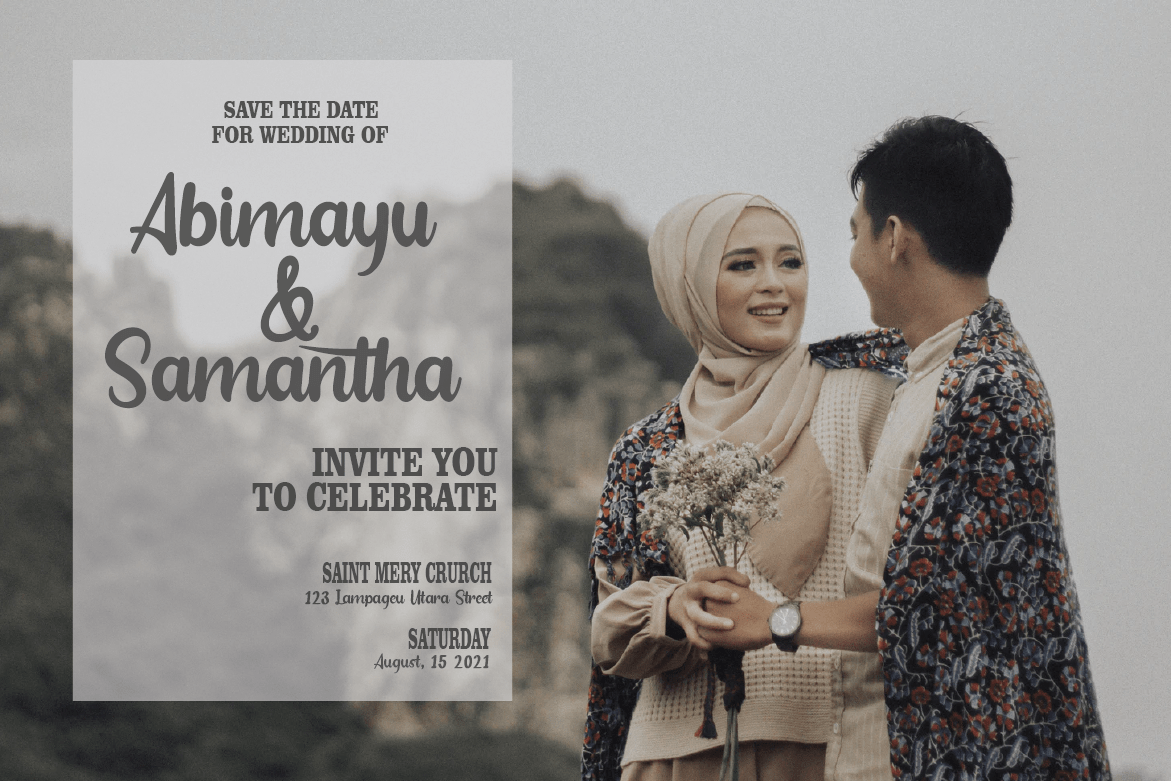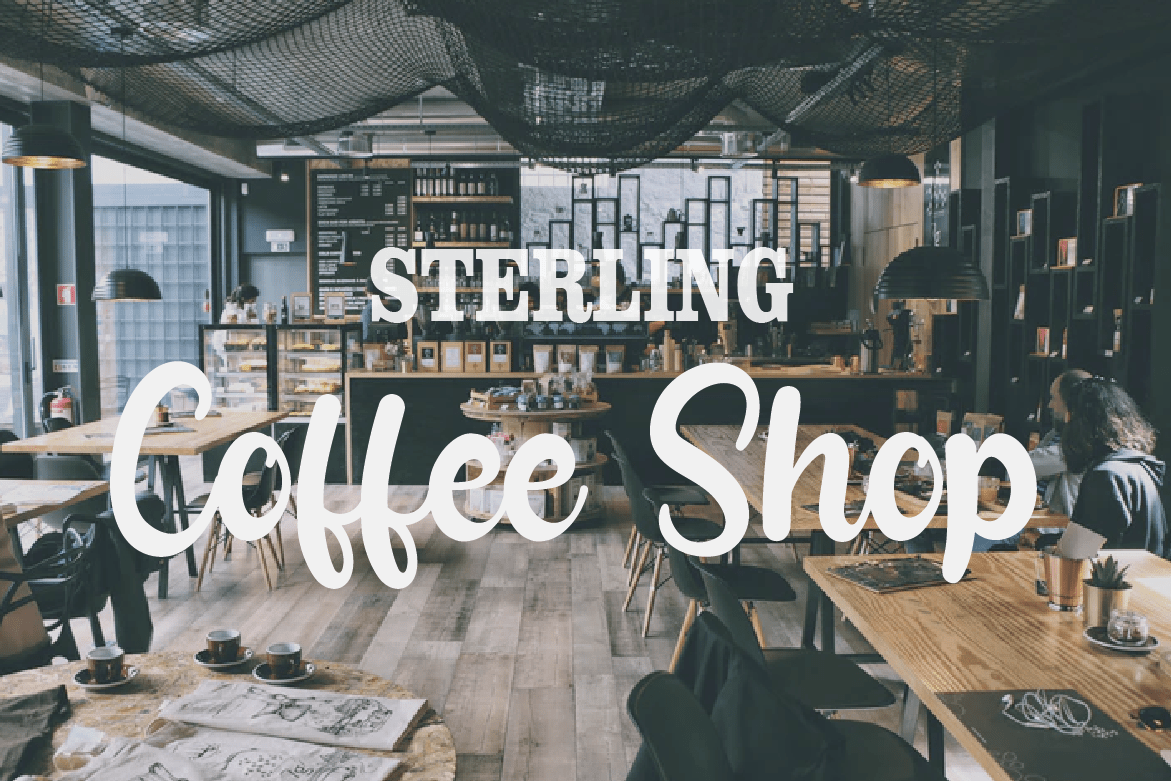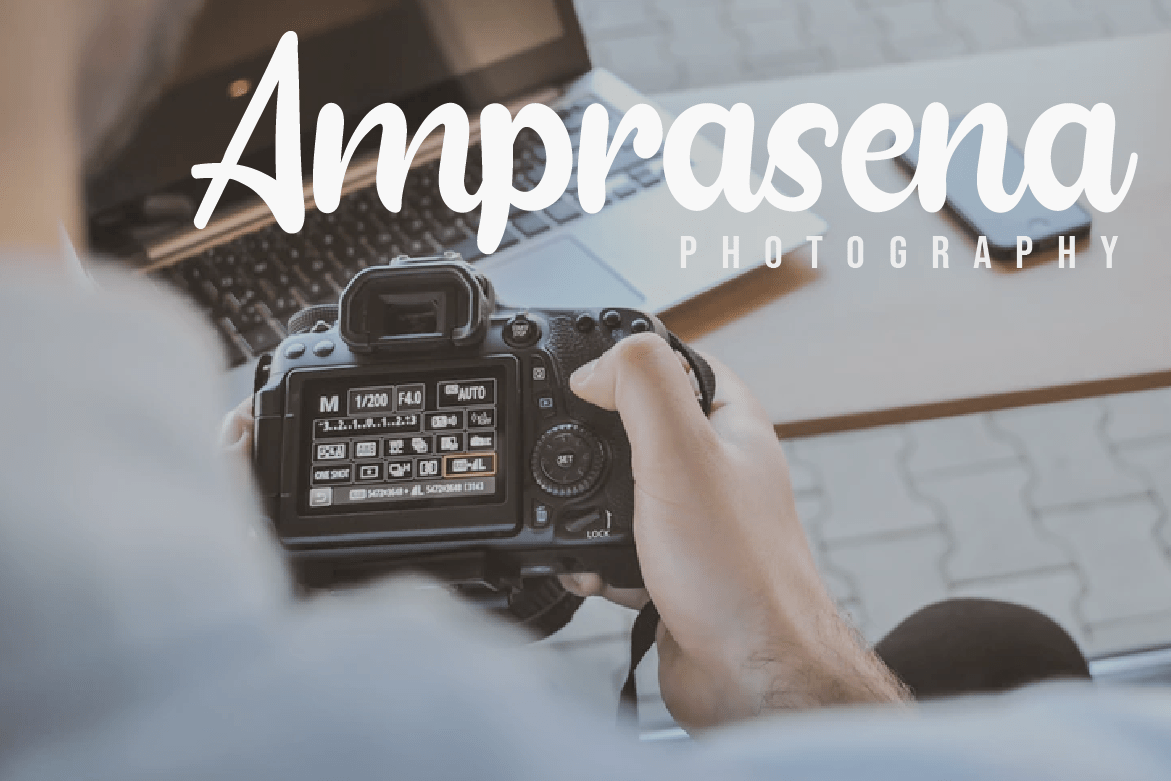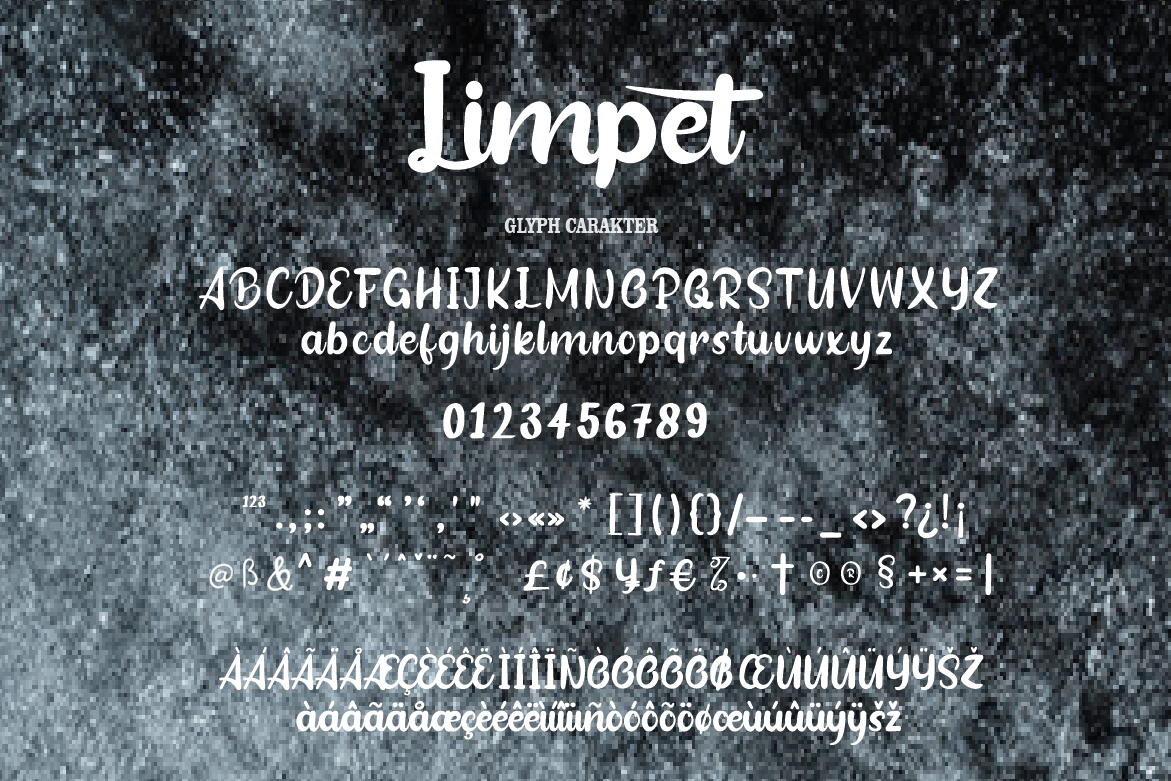
Limpet Font
Limpet Script Font
This is a sophisticated handwritten font that is great for conveying any message with confidence, authenticity, and charm. This will enhance a variety of craft ideas, from cards, to branding, labels, and more.This font is PUA encoded which means you can access all the glyphs and sweeps easily!